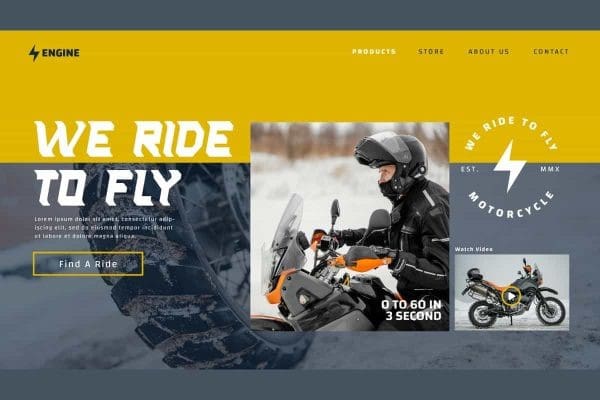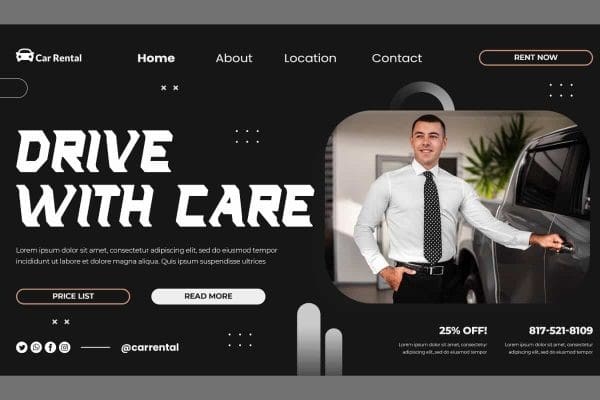
Speedthon Display Font is a modern racing display font with attractive shape and cool appearance. This font has bold characters that make it look brave and awesome. It will be good for any designs, such as advertisement, brand image, cover, custom design, invitation, label, menu, poster, product packaging, quotes, stationery, website page, and more!
Speedthon Display Font includes a full set of ALL CAPS for Uppercase and Lowercase Letters, Numerals, and large range of Punctuation. This impressive font with a racing vibe will be suitable for various industries, such as accessories, café, event or festival, fashion, movie, printing, publishing, sports, etc.